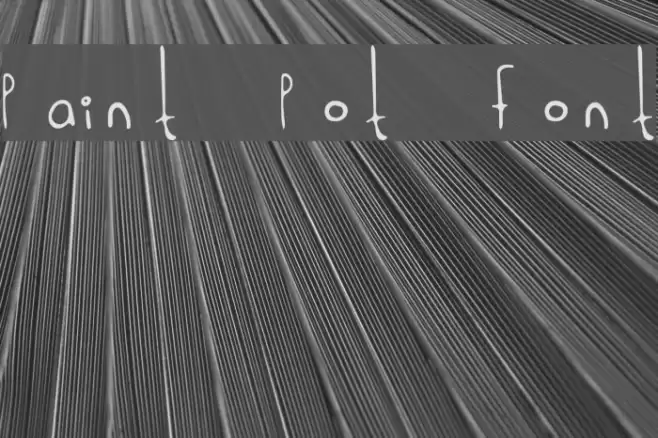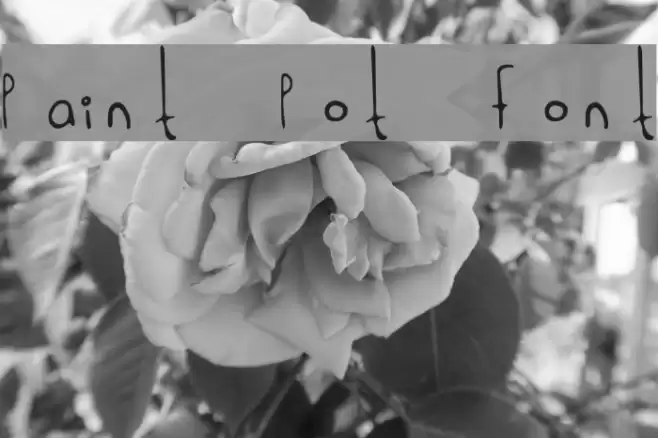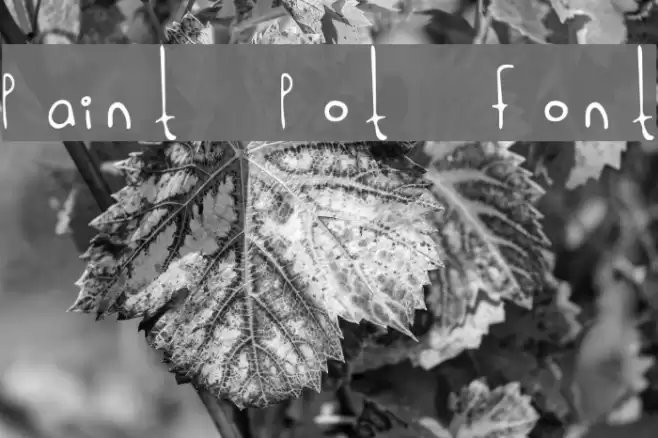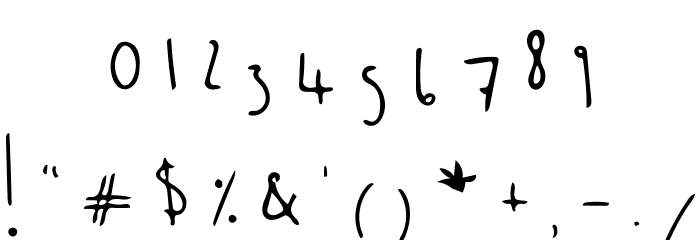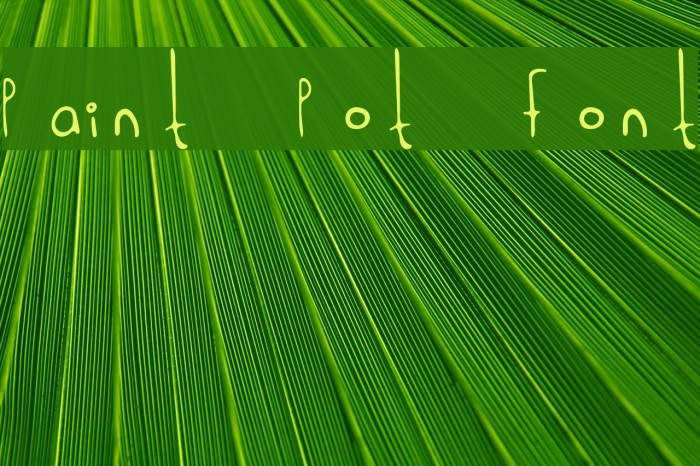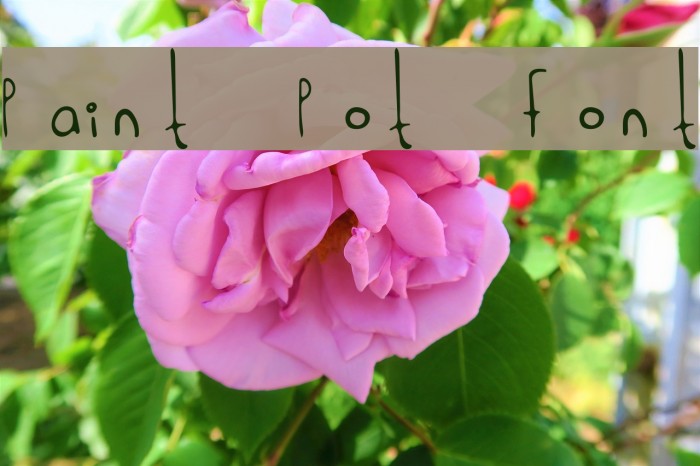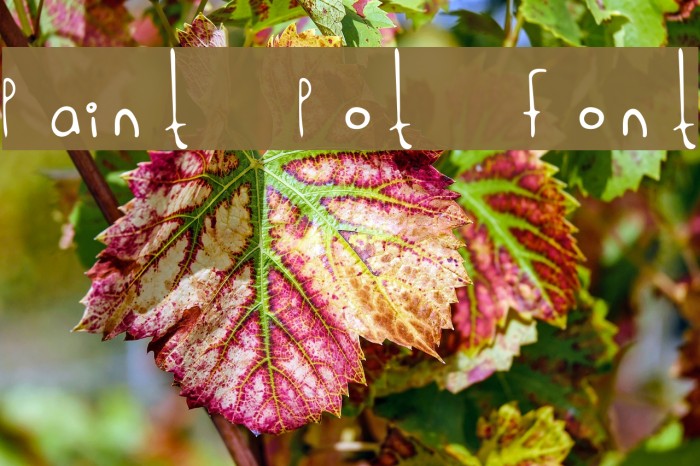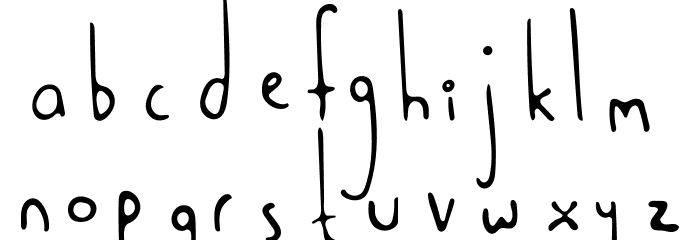
Paint Pot Font Font
Paint Pot Font Description
This font exhibits a playful and whimsical style with its hand-drawn, uneven strokes that give it a casual and informal appearance. The characters are slightly irregular, adding a sense of spontaneity and creativity. The uppercase letters are tall and slender, while the lowercase letters maintain a consistent height with a more rounded and approachable feel. Numbers and special characters follow the same quirky design, making the font suitable for projects that require a personal touch. The overall appearance is reminiscent of handwriting, making it ideal for artistic and creative applications.
A playful, hand-drawn font with a whimsical and informal style from Uncategorized fonts.
- Proposed Projects: Ideal for children's books, greeting cards, creative posters, and DIY projects.
- Use Case: Headlines, Creative projects, Informal text